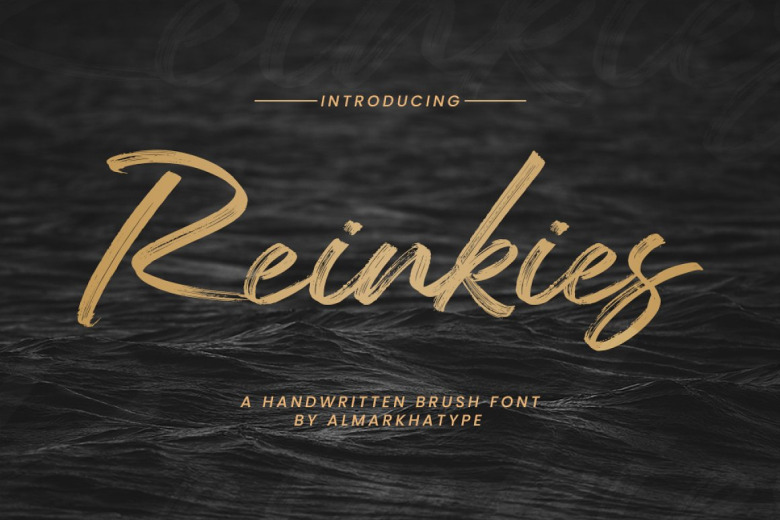
Reinkies Font
Reinkie by Bromello (Script — Brush, Non-Retna) Reinkie is a proper brush script font written casually and quickly. “In a brush of the letters on paper…” resulting to be beautifully hand illustrated onto vector. we always gave reinkies the charming, authentic and relaxed characteristic — this way it adds a natural feel from your text with more actualized fashion.
Reinkies Brush Script Font